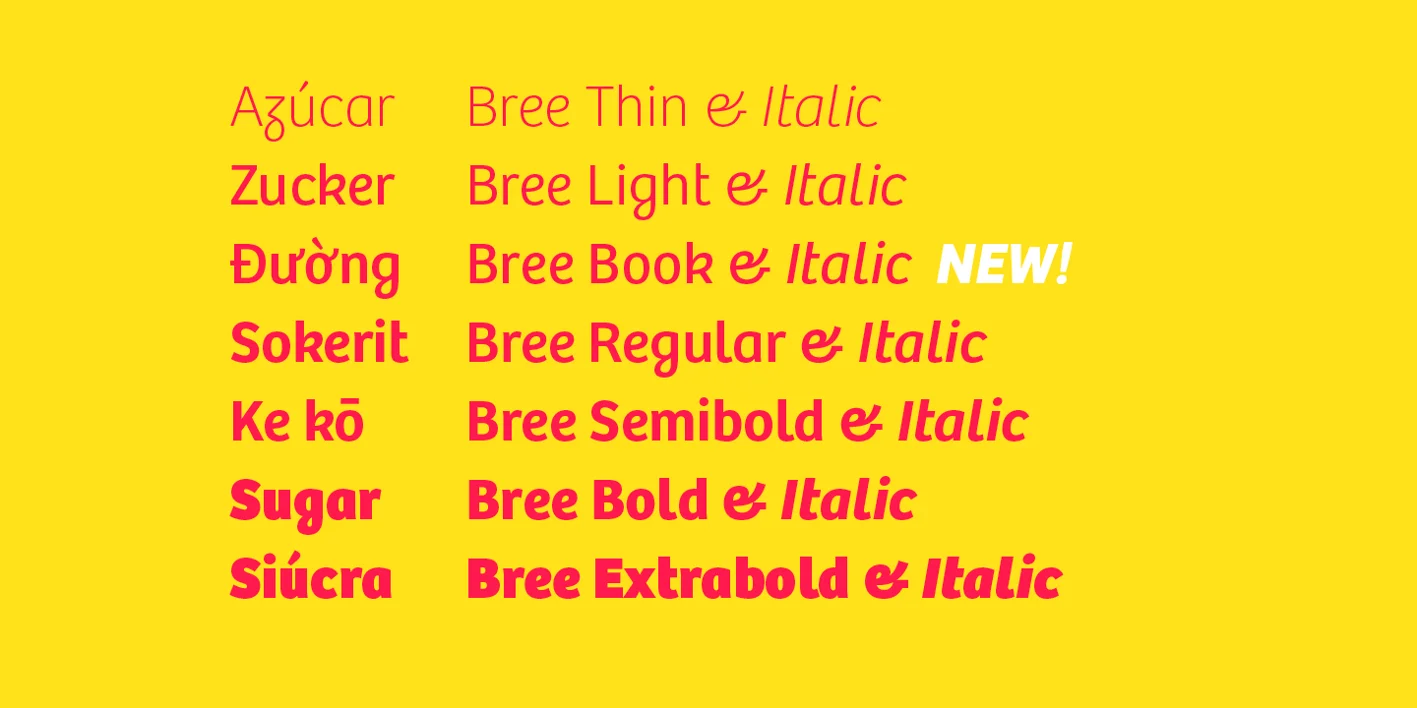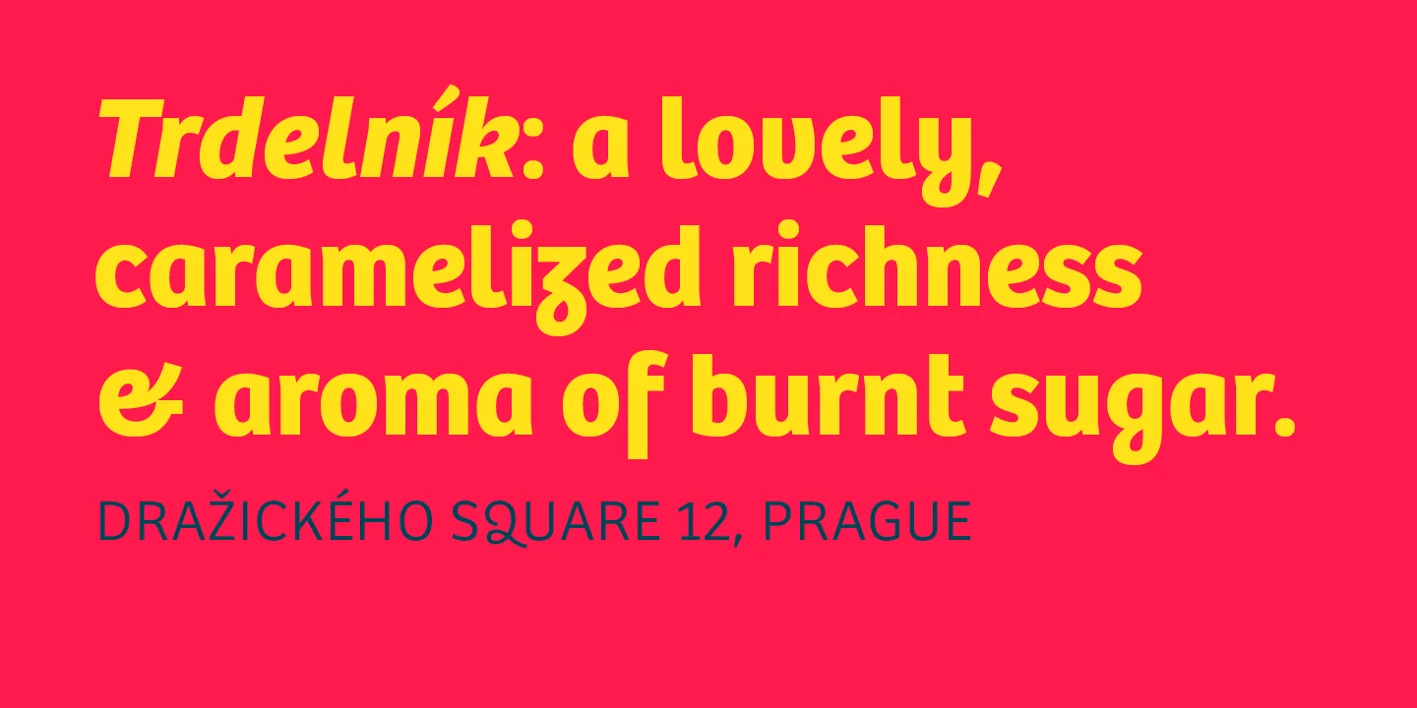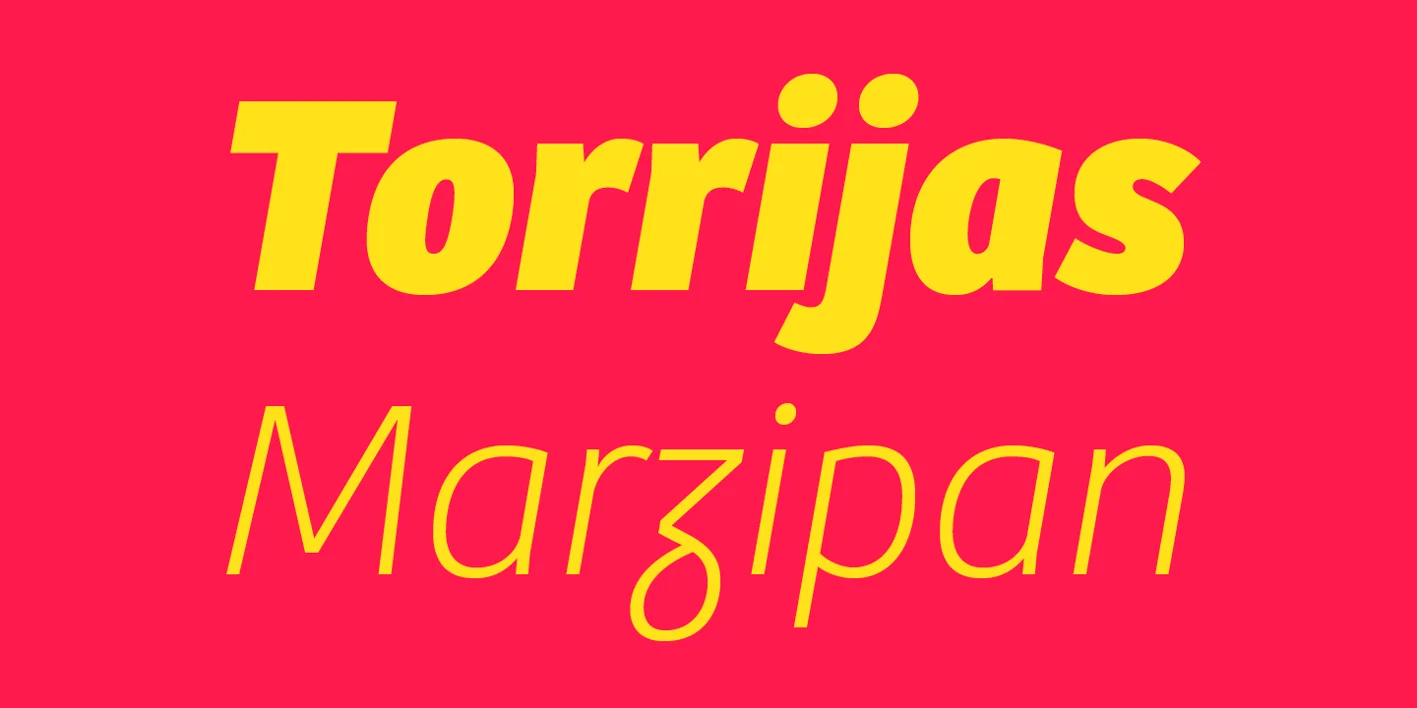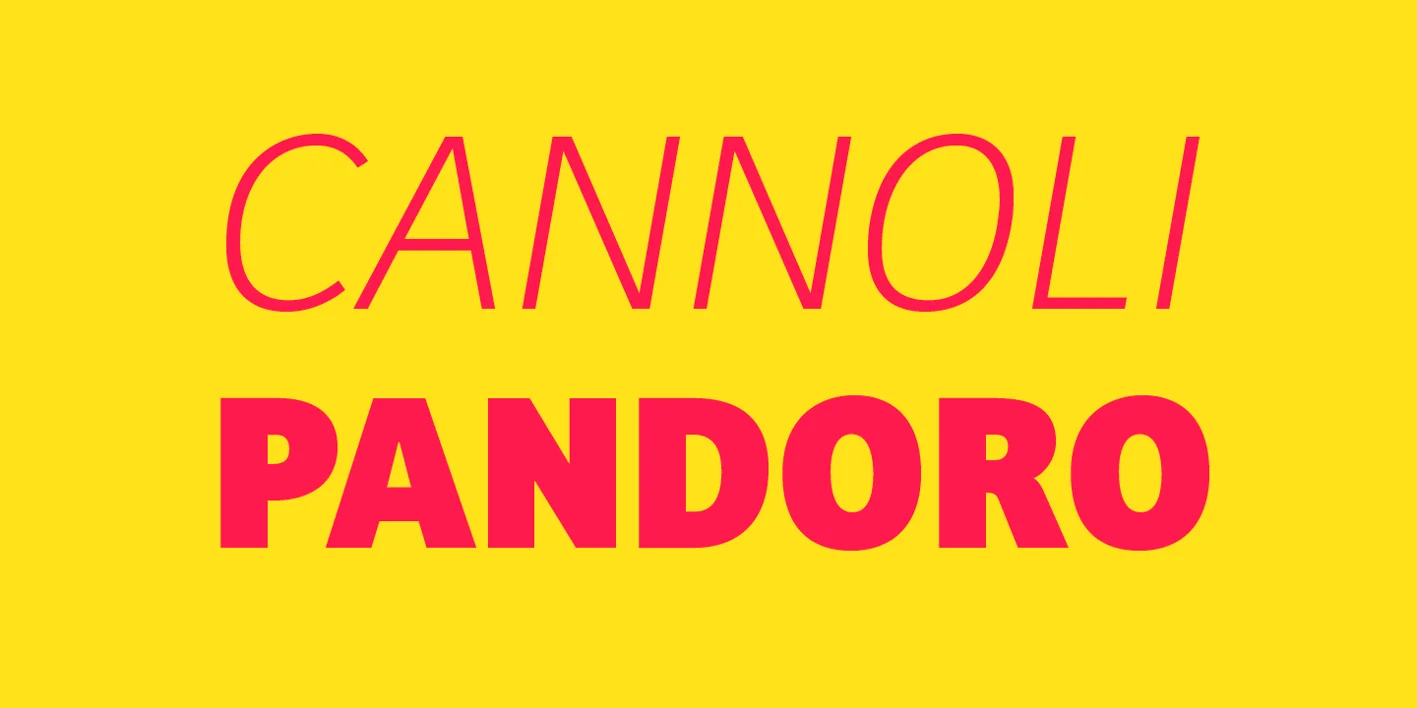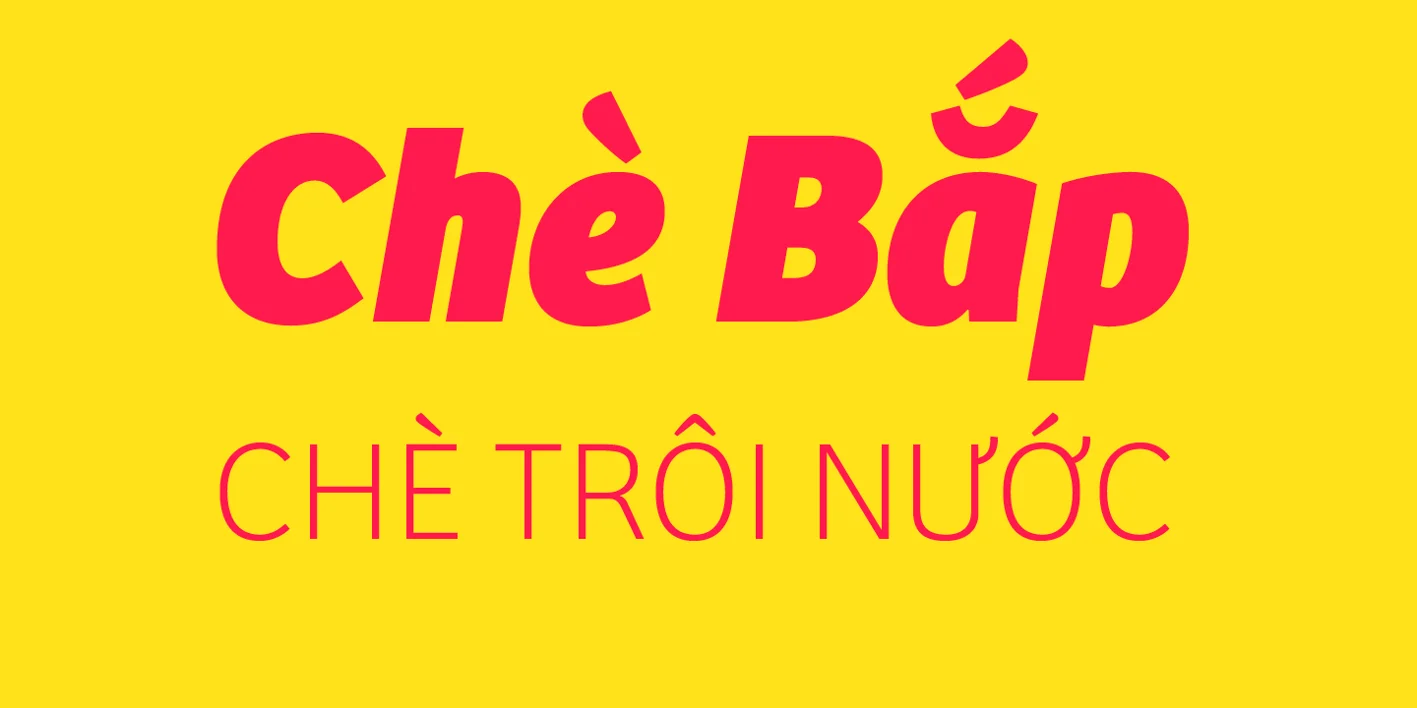
Bree Font
The Bree font family is a spry sans serif by Veronika Burian and José Scaglione that delivers a spirited look and feel for branding and headline usage. As an upright italic, Bree shows a pleasant mix of rather unobtrusive capitals with more vivid lowercase letters, giving text a lively appearance. Bree is clearly influenced by handwriting. As such, some of its most characteristic features are the single-story ‘a’, the cursive ‘e’, the outstroke curves of ‘v’ and ‘w’, the flourished ‘Q’, and the fluid shapes of ‘g’, ‘y’, and ‘z’. Alternates of these letters are available when a more neutral look is desired. Bree has a touch of cheekiness, a wide stance for each character, and an extra-large x-height. All this adds up to a big personality, so even when set in small text there is no skimming past the words Bree voices.